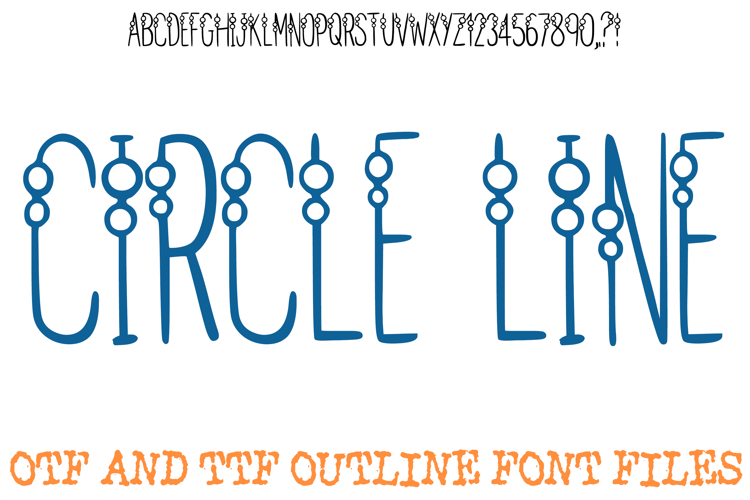
Step into a world of delicate elegance and playful minimalism with the Circle Line Font. This beautifully graceful display typeface features ultra-thin, elongated hand-drawn stems uniquely accented by pairs of perfectly stacked hollow circles resting on the linework. Striking a flawless balance between contemporary fine-line art and whimsical detail, this alphabet mimics the look of elegant jewelry beads threaded onto fine wire, counting beads on a vintage abacus, or fresh dewdrops clinging to tall blades of grass. It stands as an exceptional selection for projects requiring a light, airy, and sophisticated aesthetic.
Delivered as an installable typeface, this minimalist line art structure offers incredible versatility for creative overlays. It serves as a wonderful resource for a designer who wants to apply soft pastel color choices, metallic textures, or dramatic high-contrast dark backgrounds. The slender, clean geometry scales beautifully across all major design software, ensuring sharp, refined results for both digital graphics and delicate print layouts.